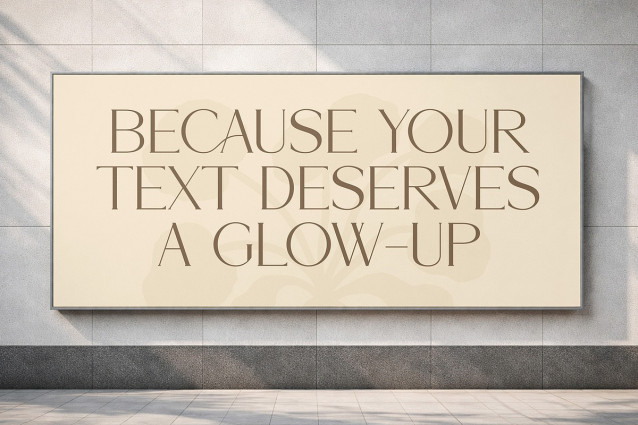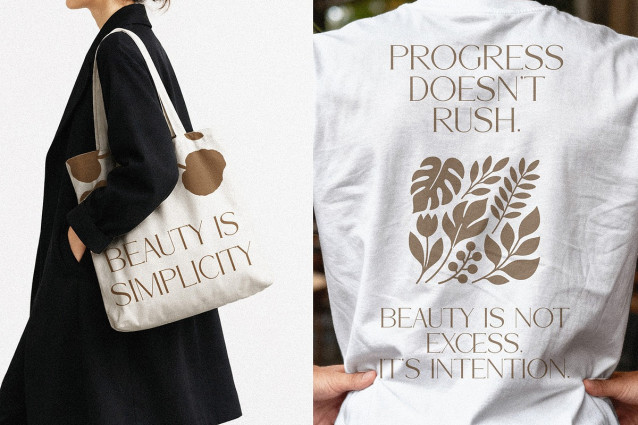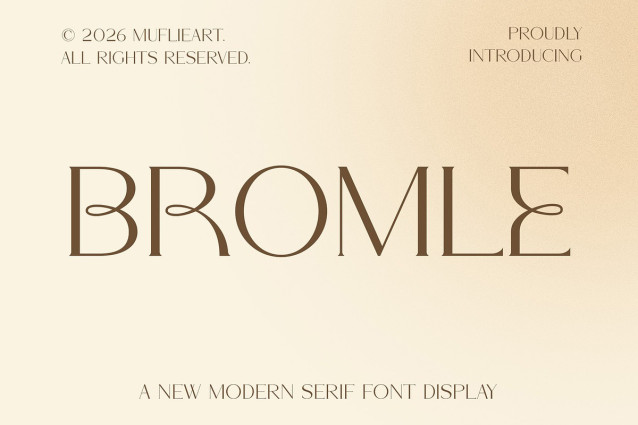
Bromle Font
Bromle Font the elegant, beautiful, and modern Serif. With its modern and minimalist look, Bromle brings a luxurious, classy, ​​and clean style to your projects such as websites, modern logos, brand identities, social media quotes, wedding stationery, magazines, and more!
Bromle features unique and classy capital letters A to Z and also comes with unique alternates and ligatures making Bromle a beautiful font that can be customized for various projects and jobs you want.